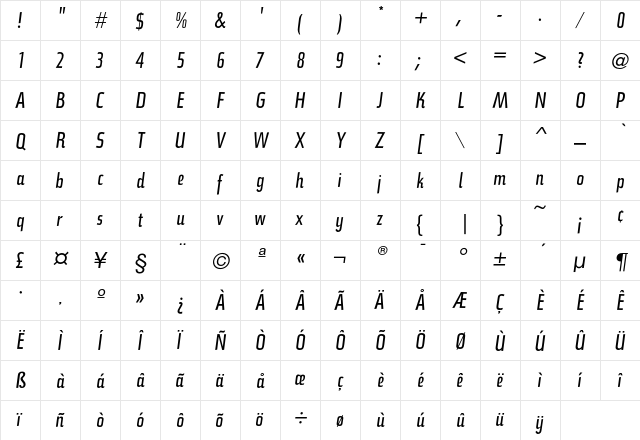
BauerTopic MediumItalic Font Preview
BauerTopic MediumItalic
Design Context for BauerTopic Typeface
BauerTopic offers clean, dependable letterforms without strong stylistic allegiance, making it a practical choice for designers who need flexibility. The dynamic lean of this cut emphasises speed and emphasis in any layout.
Pro Tip: Use BauerTopic for emphasis, pull quotes, and subheadings where its slanted energy can add rhythm to the layout.